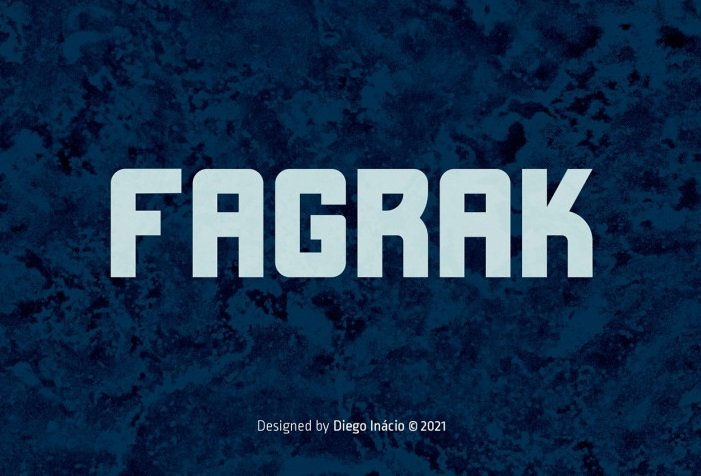
Fagrak Font
Fagrak Font is a geometric sans-serif typeface. This futuristic font has a rectangle, monolined appearance with a retro-digital style. This typography is perfect for logos, posters and social media posts. You can combine the characters to create some unique typefaces.